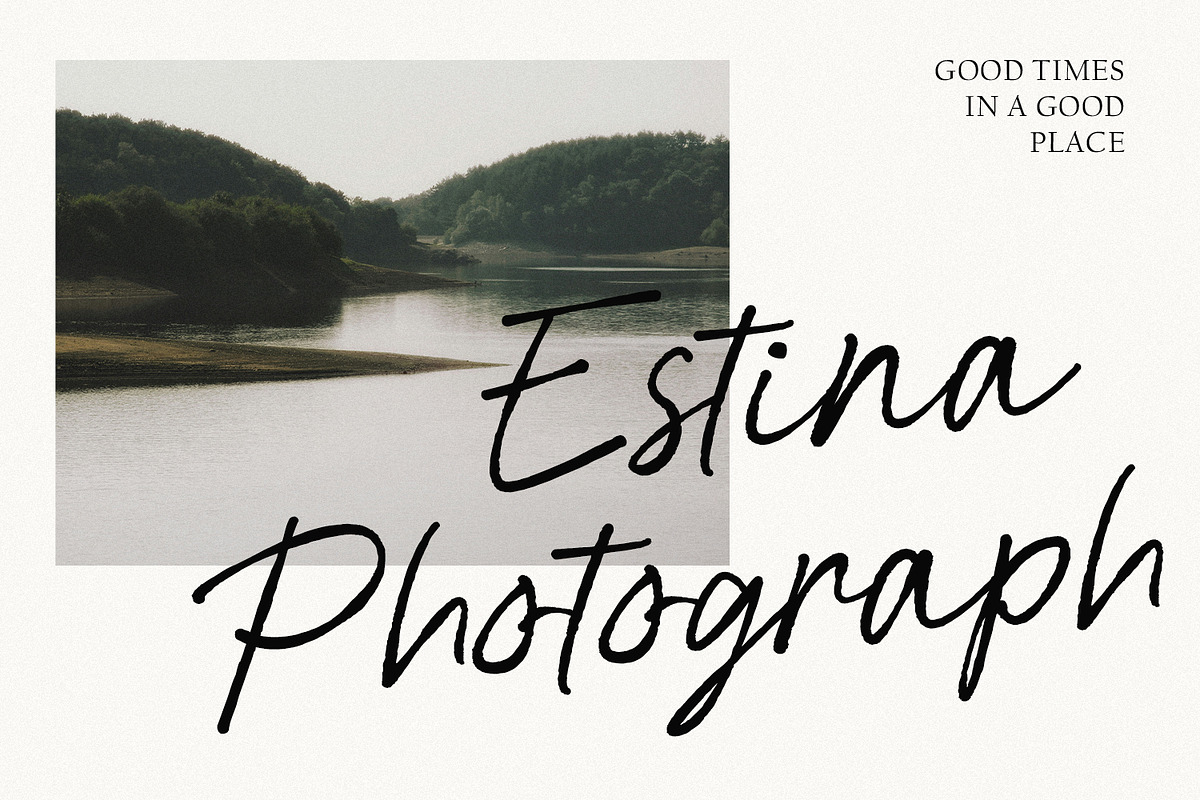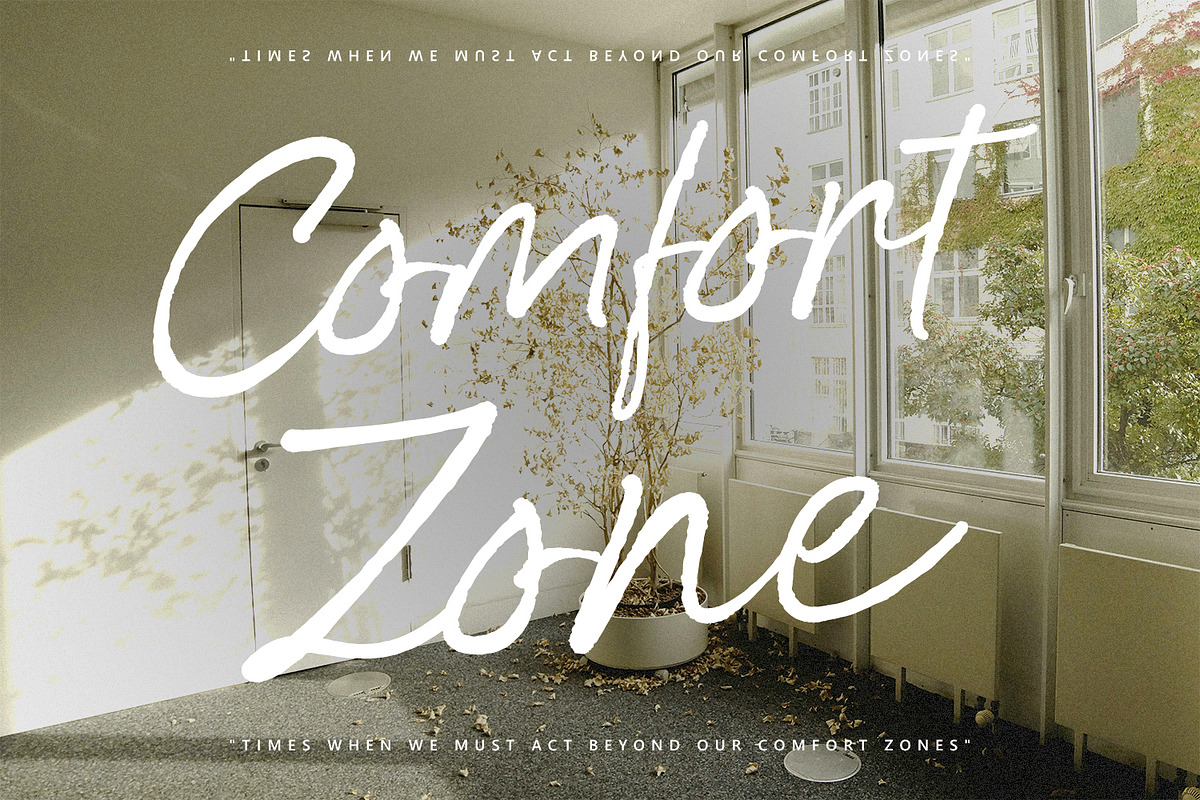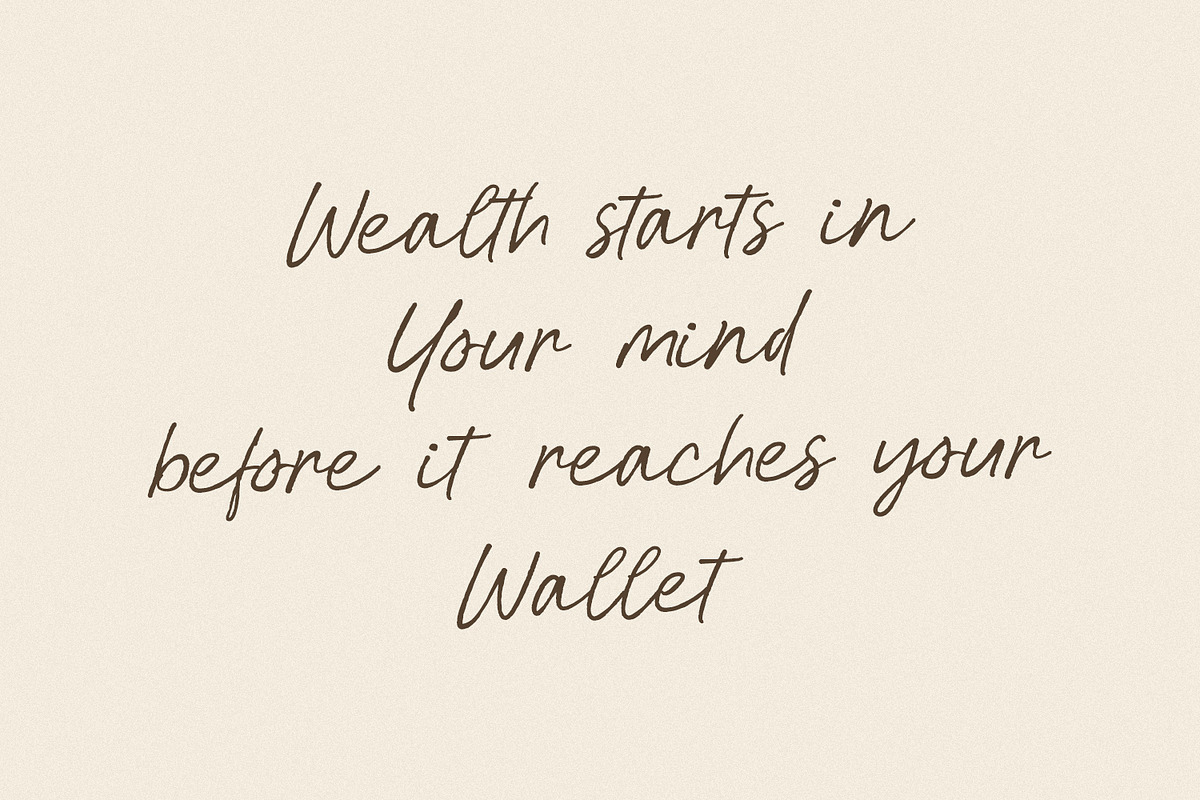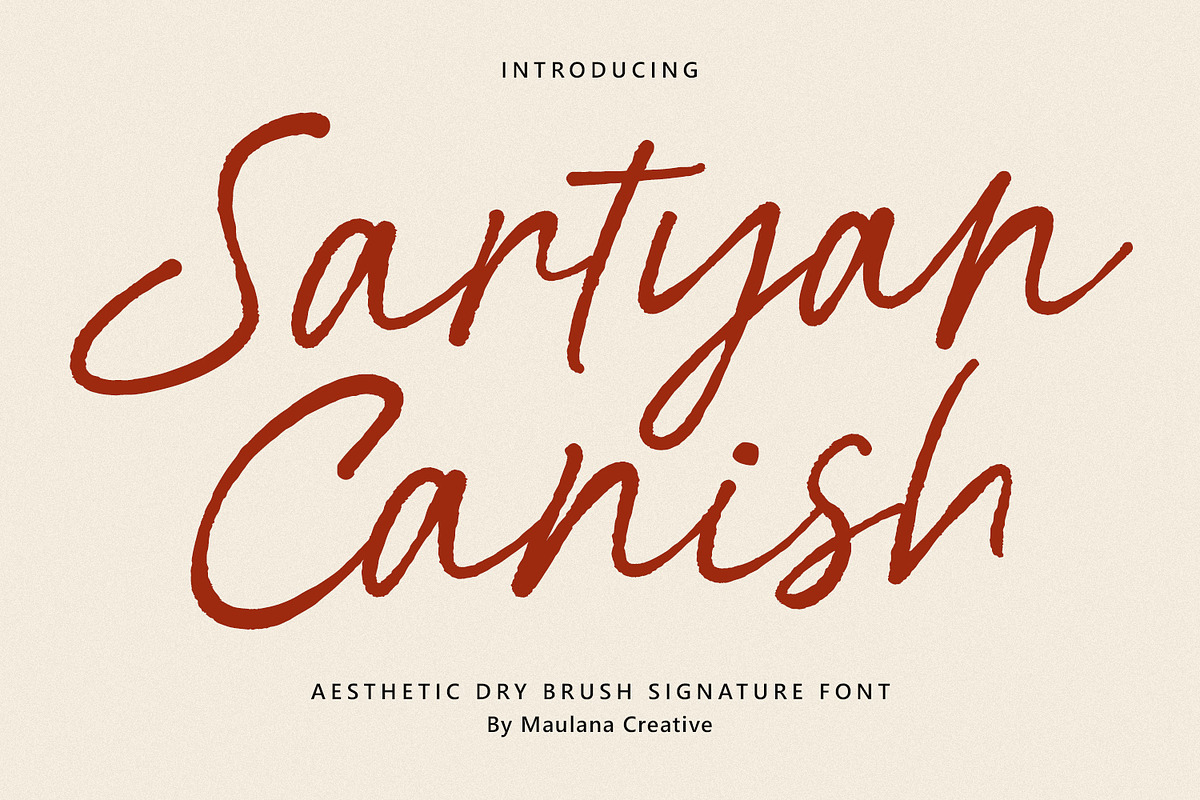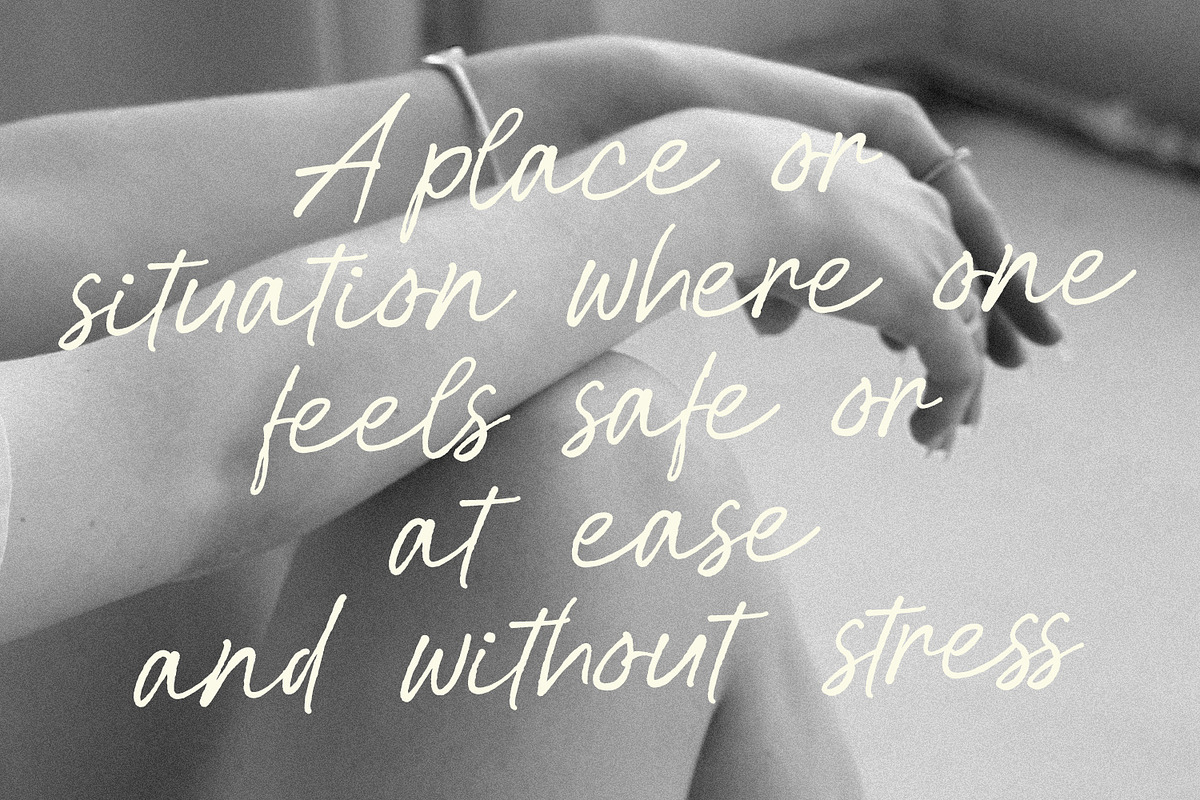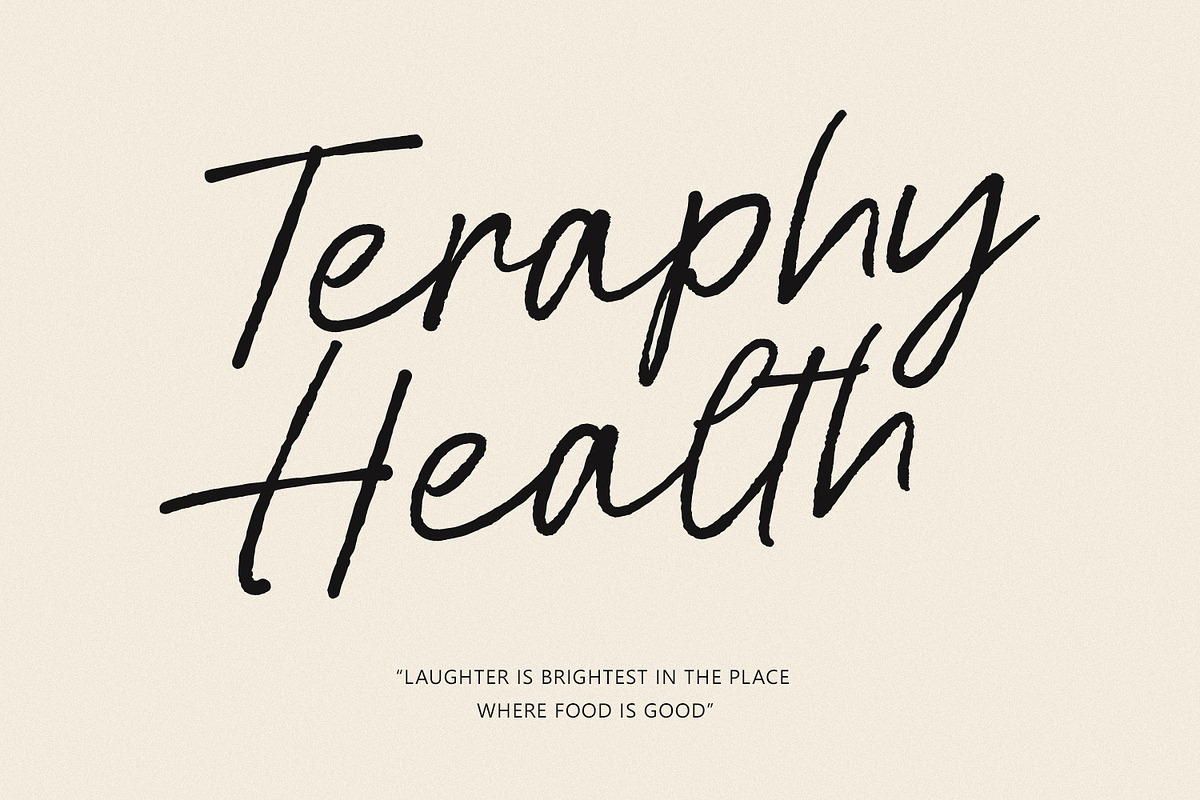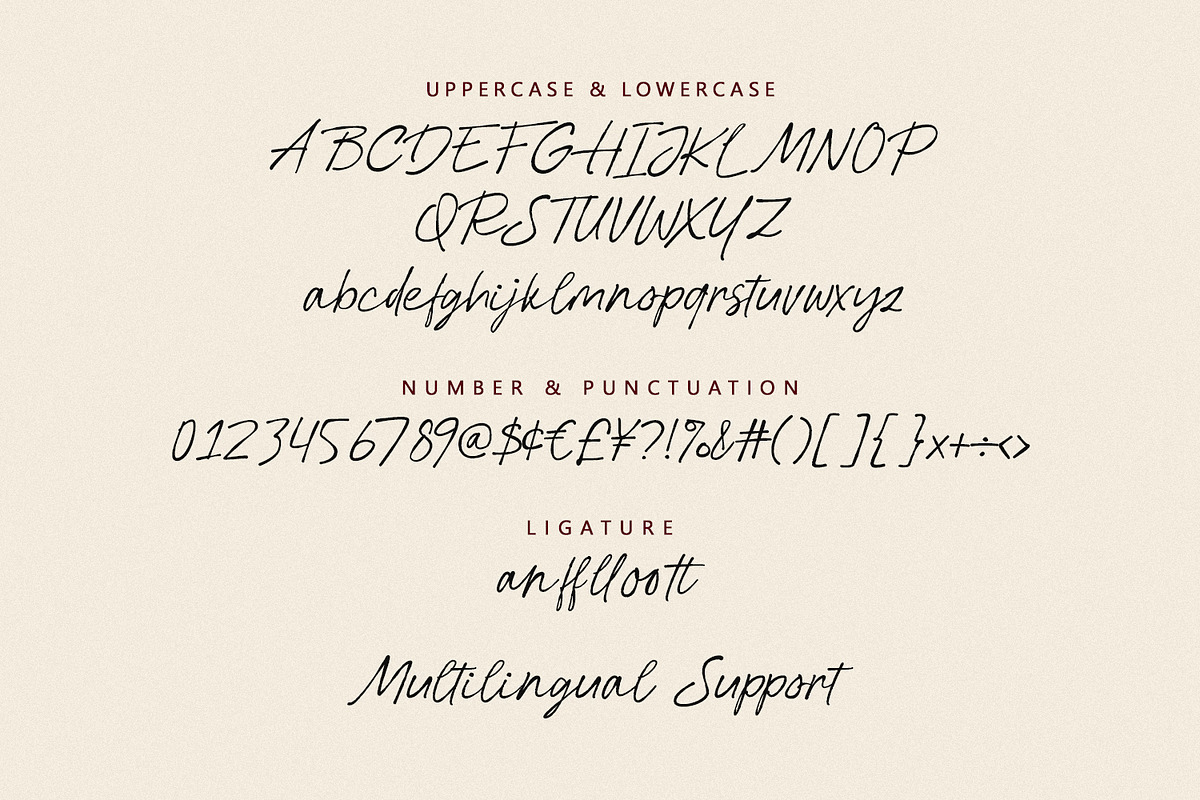
Sartyan Canish Aesthetic Dry Brush
Sartyan Canish is a sophisticated dry brush signature font that captures the authentic essence of hand painted lettering. Created by Maulana Creative, this font features a textured, natural stroke that adds a personal and artistic touch to any design. Its elegant yet raw aesthetic makes it perfect for branding, photography watermarks, lifestyle quotes, and stylish social media posts. With a full set of uppercase and lowercase letters, numbers, punctuations, and ligatures, Sartyan Canish offers a seamless, flowing look that mimics real handwriting with effortless grace.
- Full character set (Uppercase & Lowercase)
- Numbers, Punctuation, and Symbols
- Ligatures for a natural handwriting flow